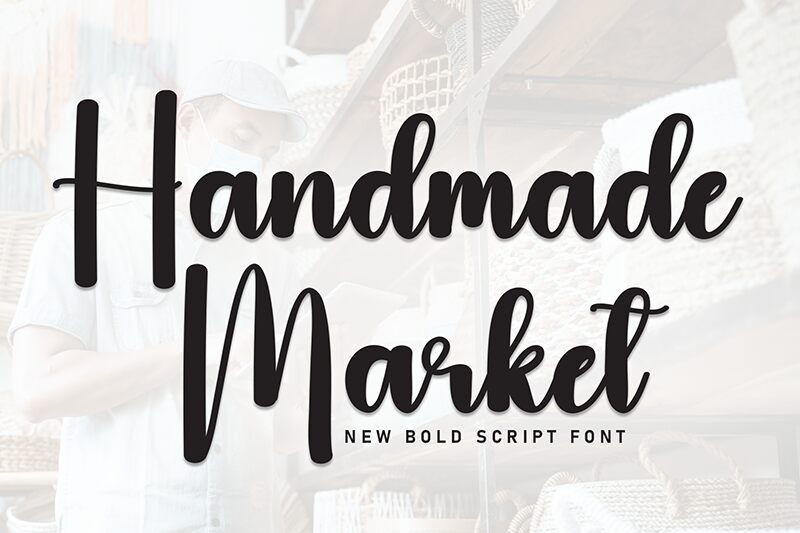
Handmade Market
Handmade Market font designed by Andi Moz is an easygoing and inviting brush font. It carries all the characteristics of a handwritten script with casual elegance, contemporary appeal, and welcoming aesthetic. Highly original, its style is authentic for stunning visuals with a playful attitude.
Use this free calligraphy font in visual identity projects that involve designing business cards, logotypes, badges, labels, posters, stationery items or packaging. Public signage elements and invitations can be further applications you’ll want to consider it for.